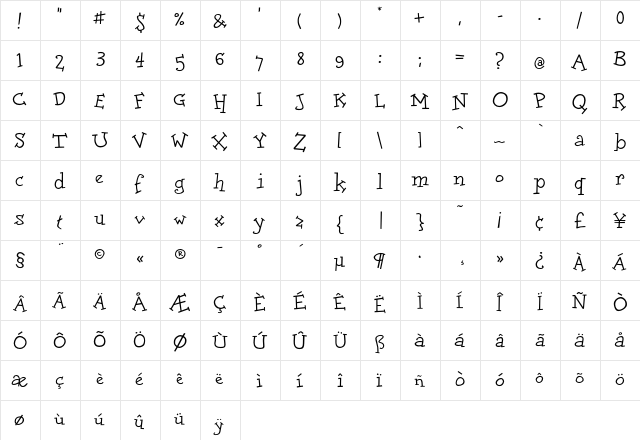
DoloresRegular Regular
Design Context for DoloresRegular Typeface
DoloresRegular is a composed and adaptable typeface that performs quietly and consistently across a wide range of design contexts.